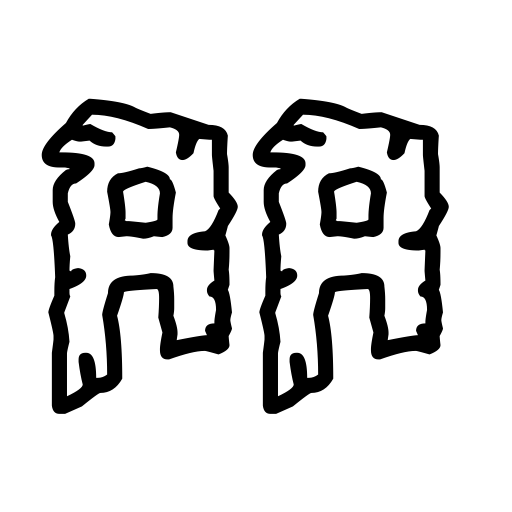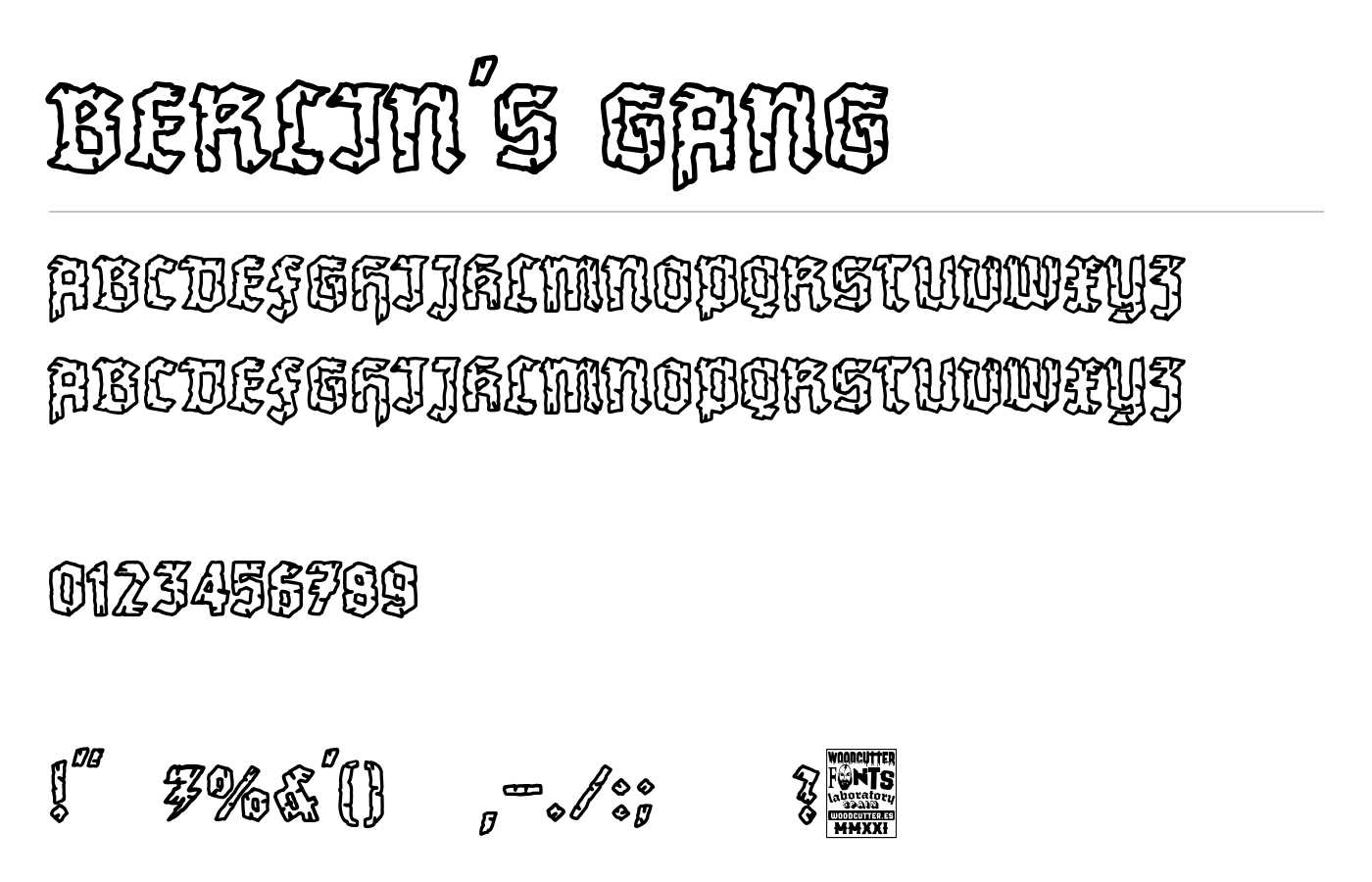
Berlin's Gang is a bold, decorative display font with a quirky, edgy style that features irregular, jagged outlines giving it a rough, handcrafted look. Its condensed letterforms and playful shapes make it ideal for eye-catching headlines and creative projects that seek a rebellious or urban vibe. This font works best in poster designs, logos, or graphics where personality and strong visual impact are key.
Berlin's Gang Font
About Berlin's Gang Font